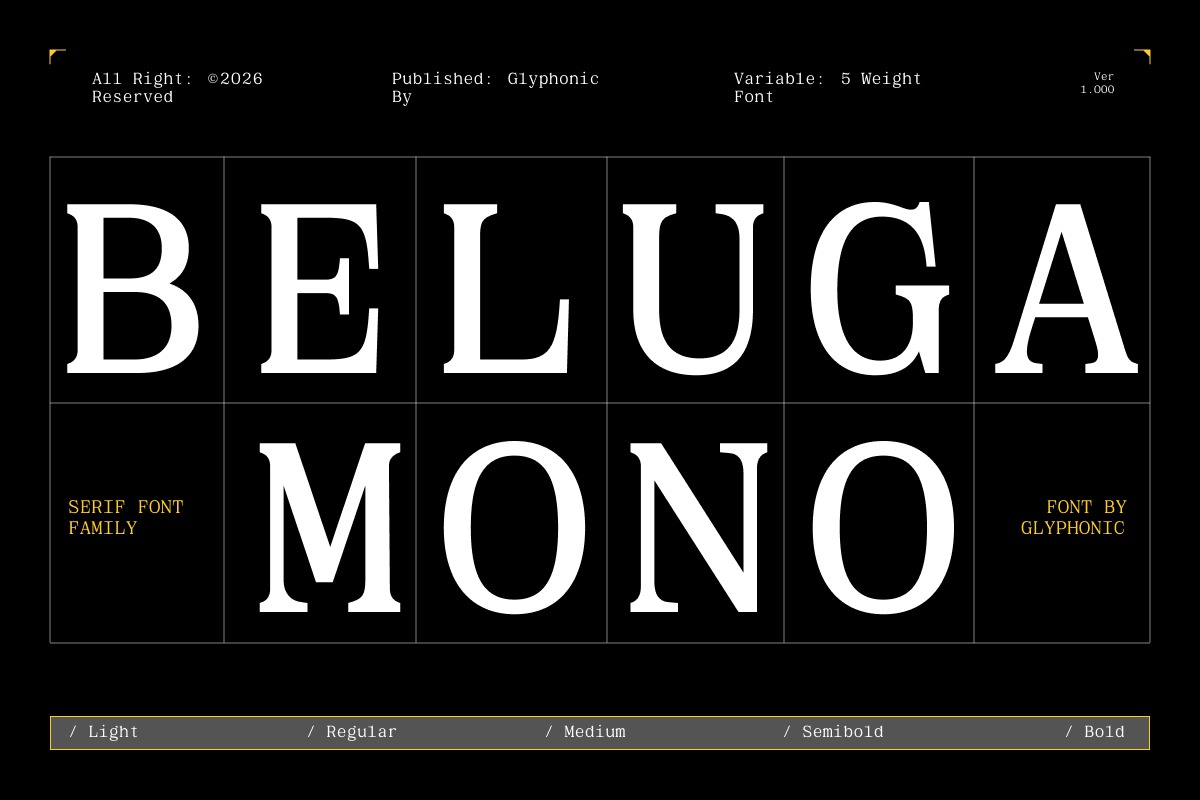
GC Beluga Font Family
GC Beluga Font Family is a premium-quality font developed to enhance your work with a polished, modern, and visually elevated look. GC Beluga Mono – Elegant Modern Mono Serif is a contemporary typeface that merges the precision of monospaced design with the refined elegance of serif forms. Built on a structured grid system and enhanced with subtle serif details, Beluga Mono delivers a unique typographic voice that feels both technical and sophisticated.
Designed to balance consistency and character, GC Beluga Mono features uniform spacing combined with graceful strokes and delicate serif accents. This fusion creates a harmonious rhythm across text, making it ideal for designs that require both precision and visual refinement.
Crafted to perform seamlessly across digital and print media, its structured monospaced nature ensures alignment and clarity, while the serif detailing adds warmth and a timeless aesthetic. This makes it especially suitable for editorial layouts, branding systems, tech-inspired visuals, coding themes, and modern luxury design projects.
As a variable typeface, GC Beluga Mono offers flexible weight control, allowing designers to fine-tune hierarchy and adapt typography across various layouts and platforms. Despite its structured system, the font maintains excellent legibility and a distinctive personality.
Whether used for elegant headlines, structured interfaces, or minimalist compositions, GC Beluga Mono brings precision, rhythm, and modern serif sophistication to your typography.